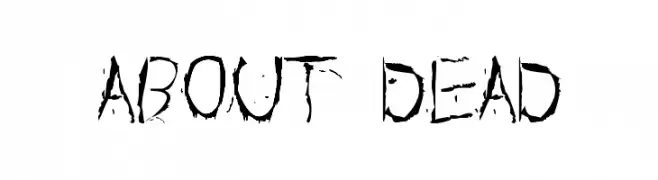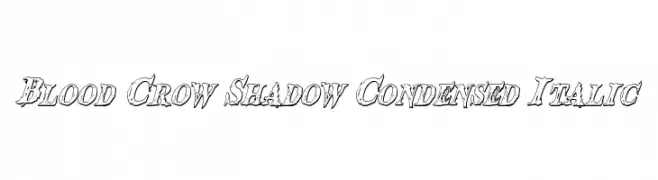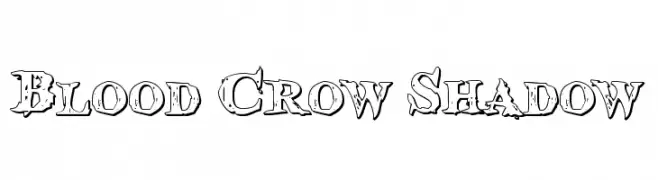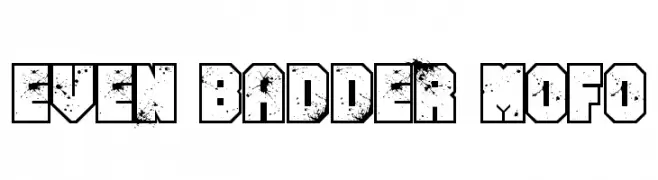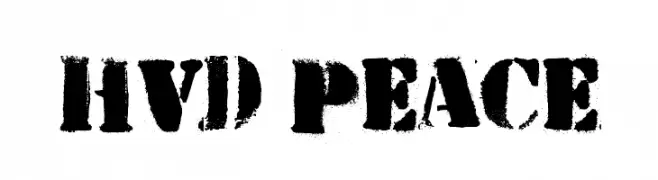
A distressed, jagged font with a chaotic and edgy appearance.
A bold, distressed, and italicized font with a shadowed, condensed style.
A rugged, distressed font with bold outlines and shadow effects.
A distressed, grungy font with chaotic, worn letterforms.
A bold, distressed font with a rugged, impactful style.
A bold, distressed stencil font with a rugged, industrial feel.